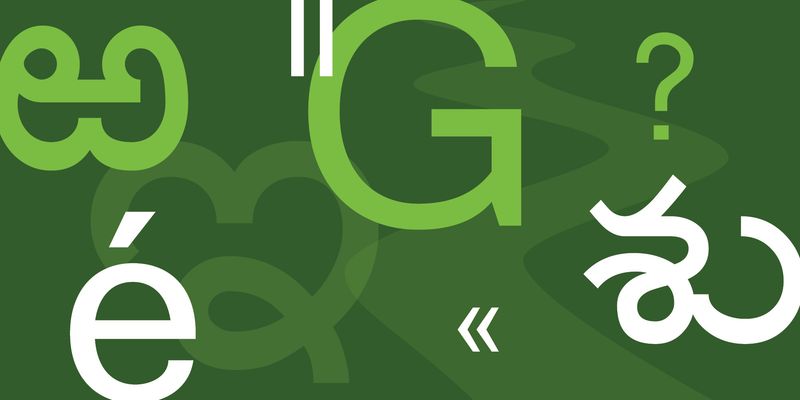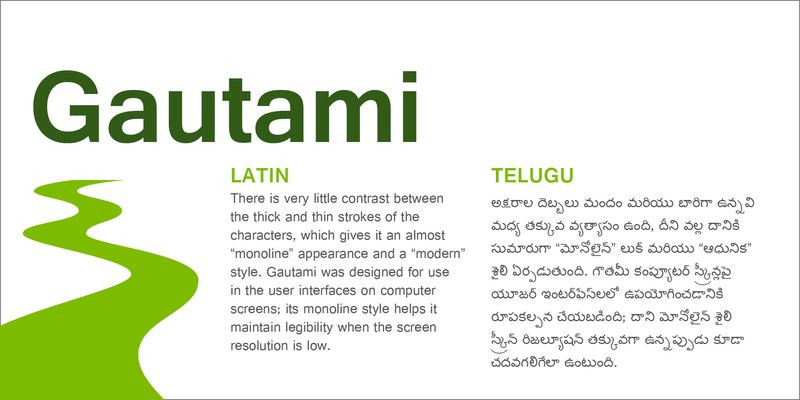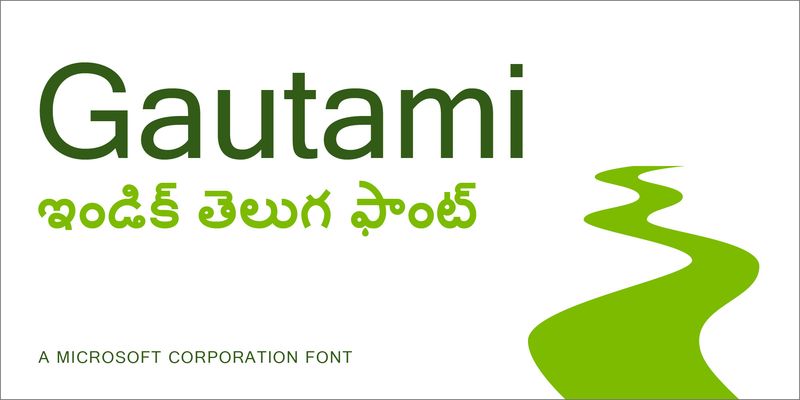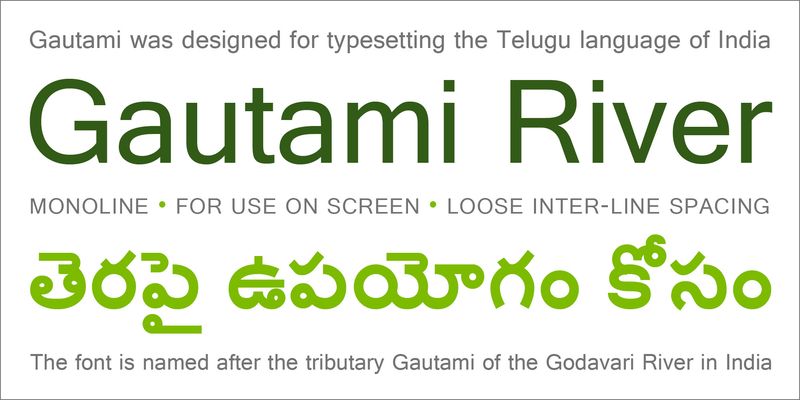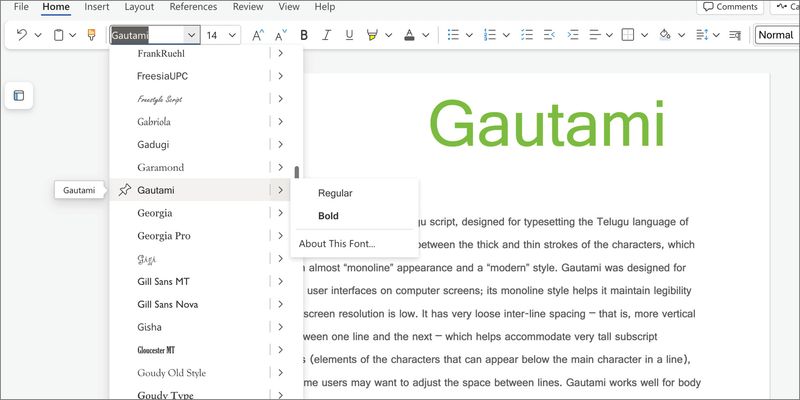
Gautami is a typeface in the Telugu script, designed for typesetting the Telugu language of India. There is very little contrast between the thick and thin strokes of the characters, which gives it an almost “monoline” appearance and a “modern” style. Gautami was designed for use in the user interfaces on computer screens; its monoline style helps it maintain legibility when the screen resolution is low. It has very loose inter-line spacing – that is, more vertical space between one line and the next – which helps accommodate very tall subscript characters (elements of the characters that can appear below the main character in a line), though some users may want to adjust the space between lines. Gautami works well for body text onscreen at small sizes.
Gautami has two weights, Regular and Bold, and no italic styles. It was designed for Microsoft by type director Raghunath Joshi and Omkar Shende.